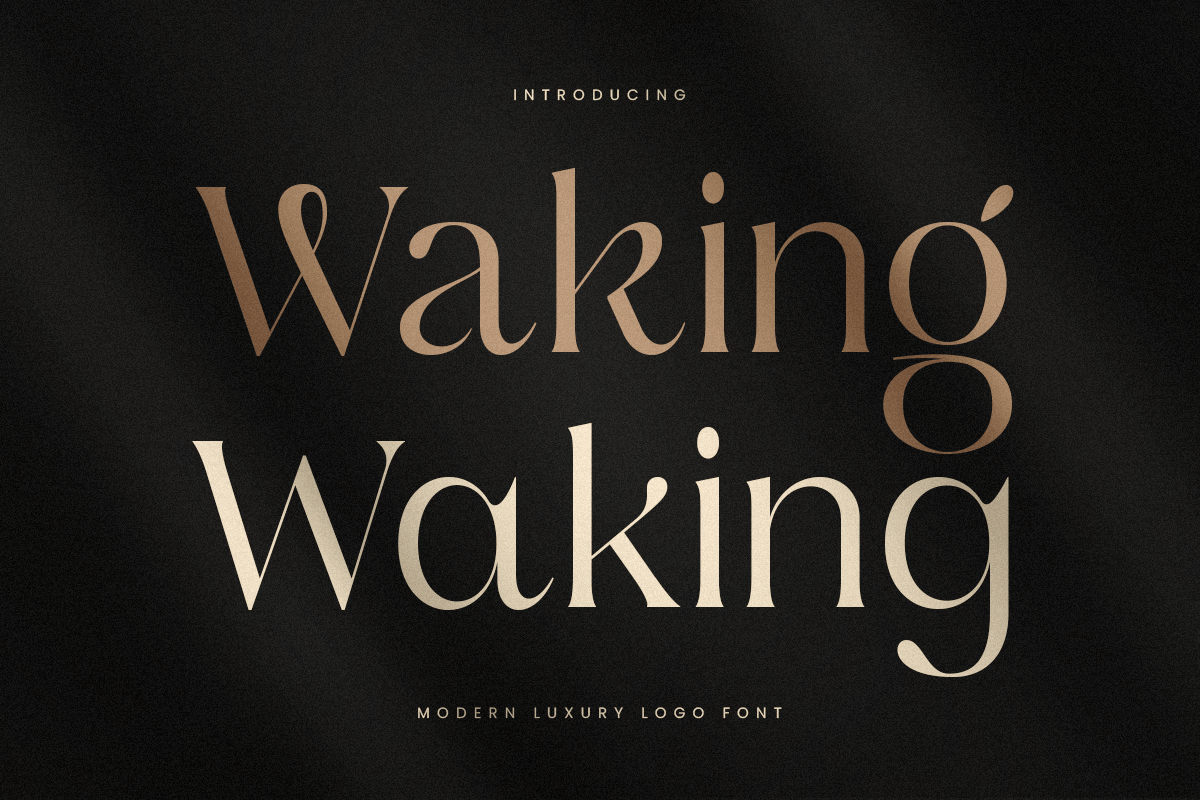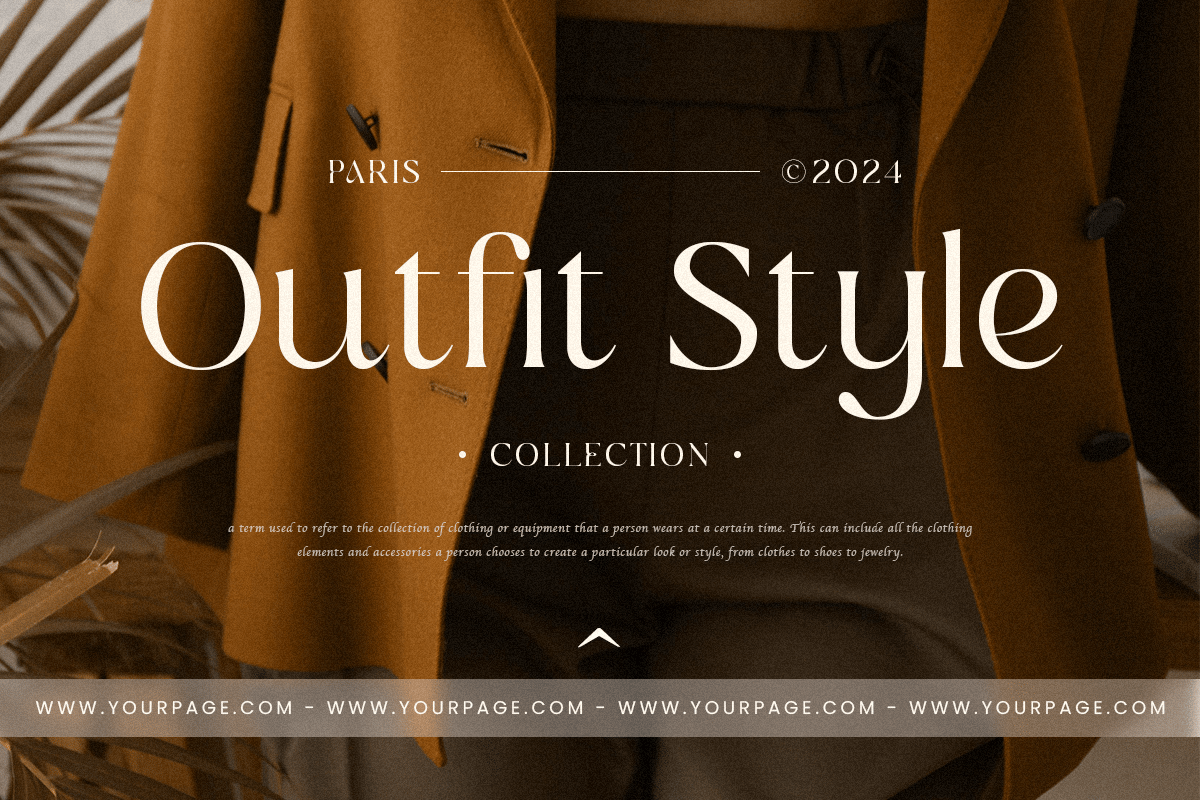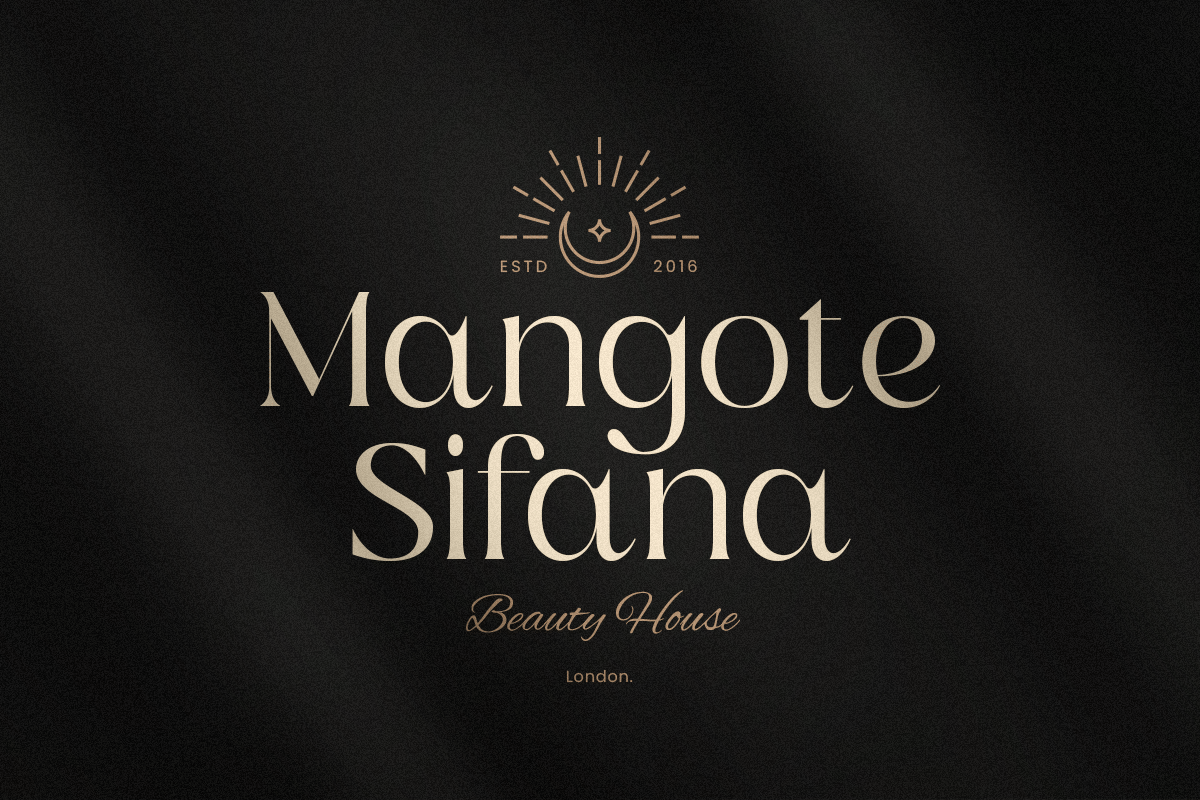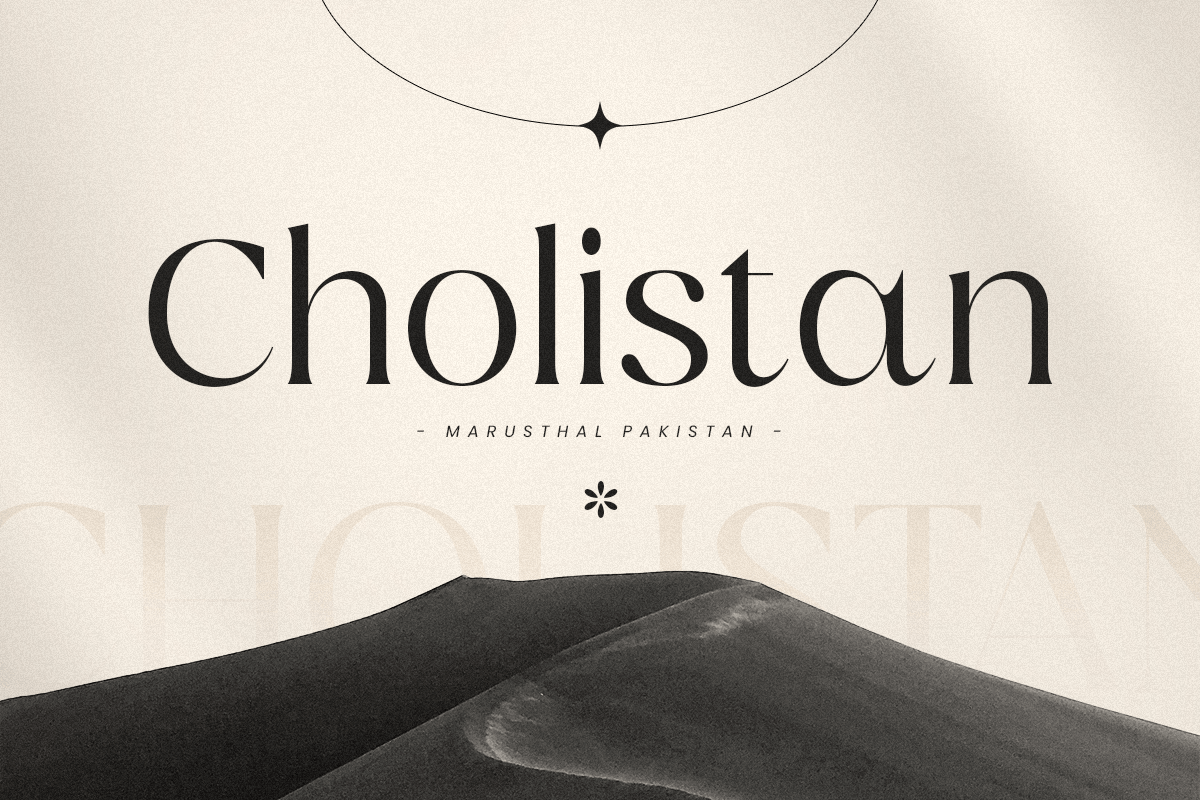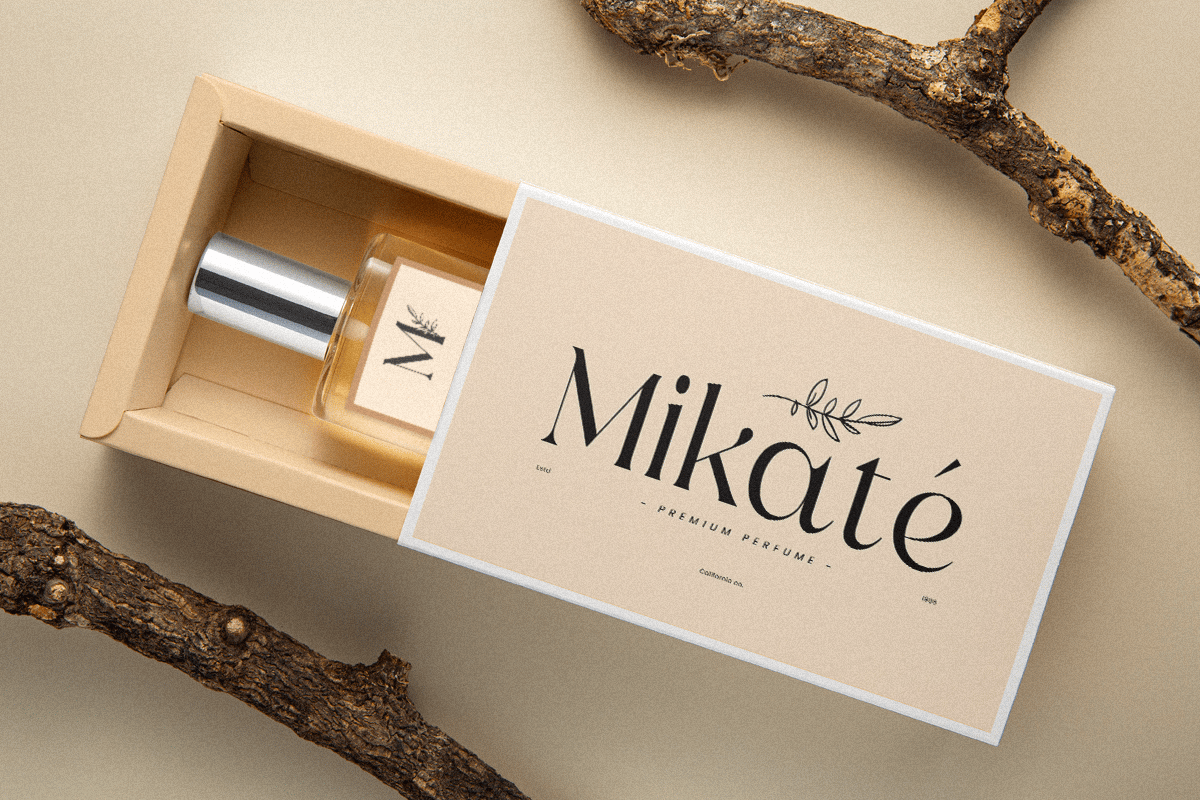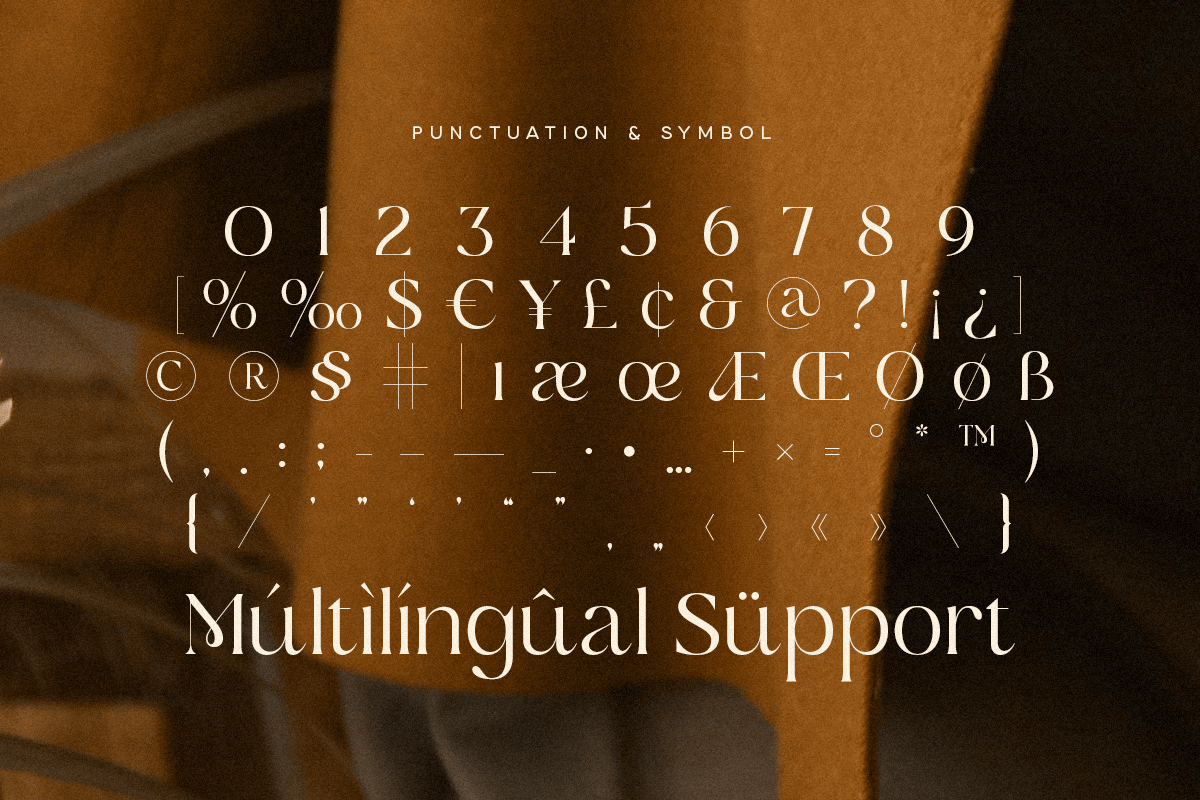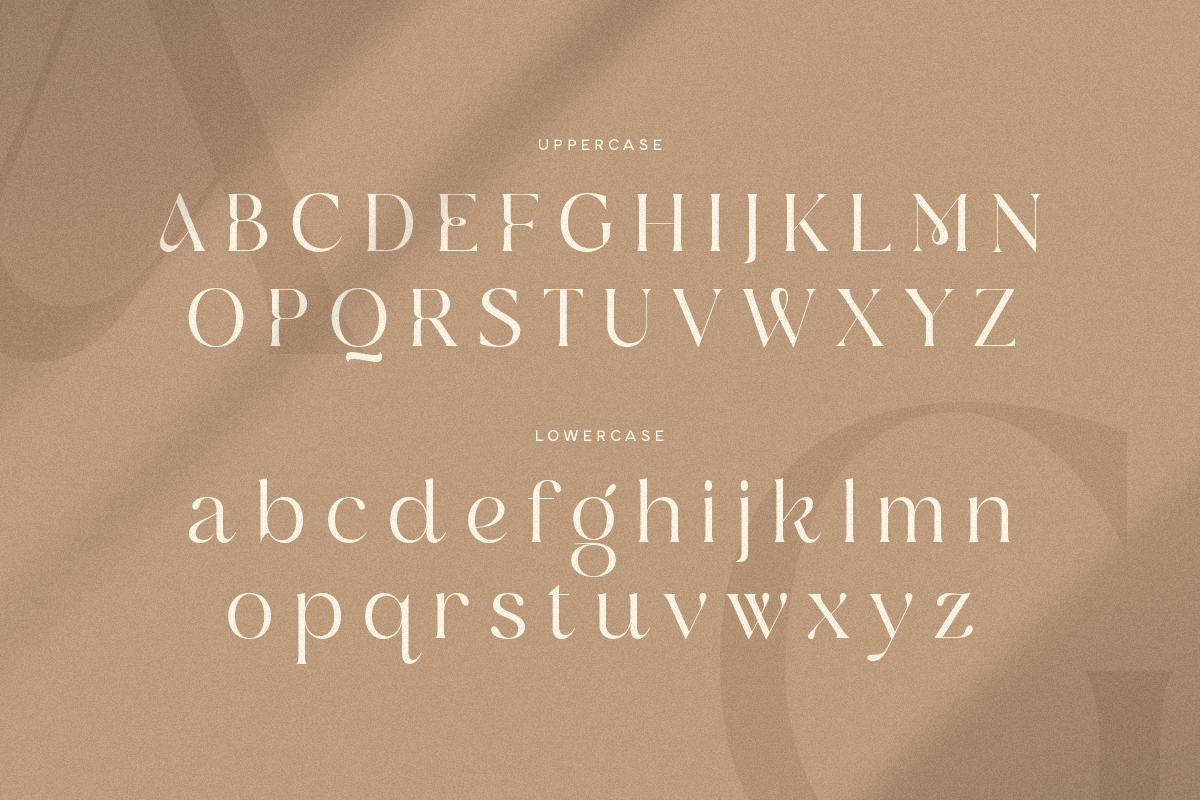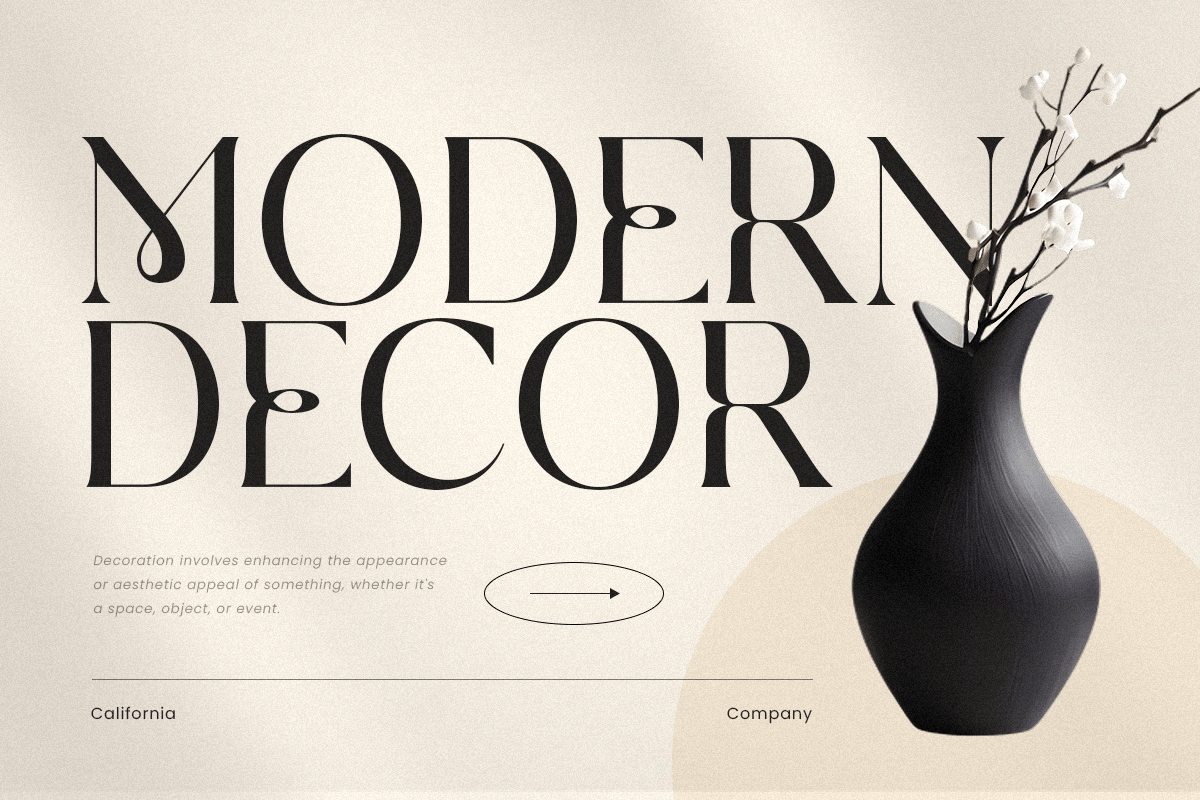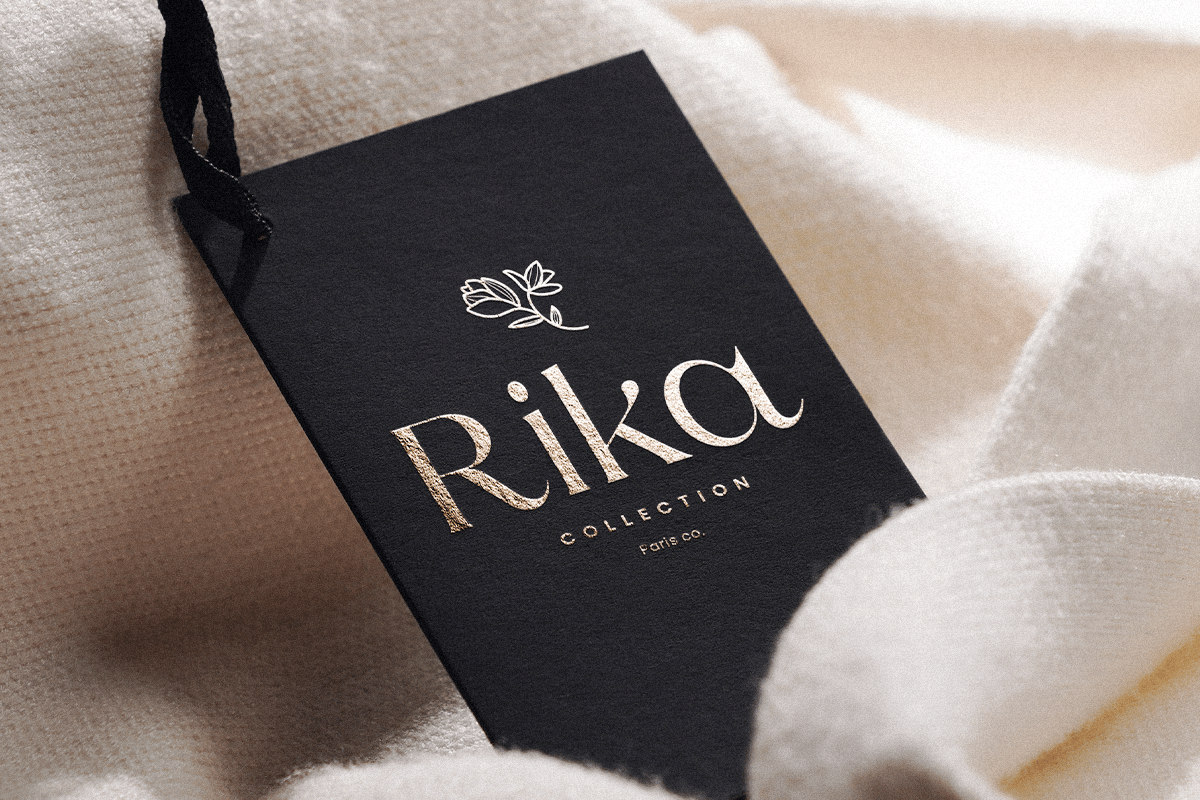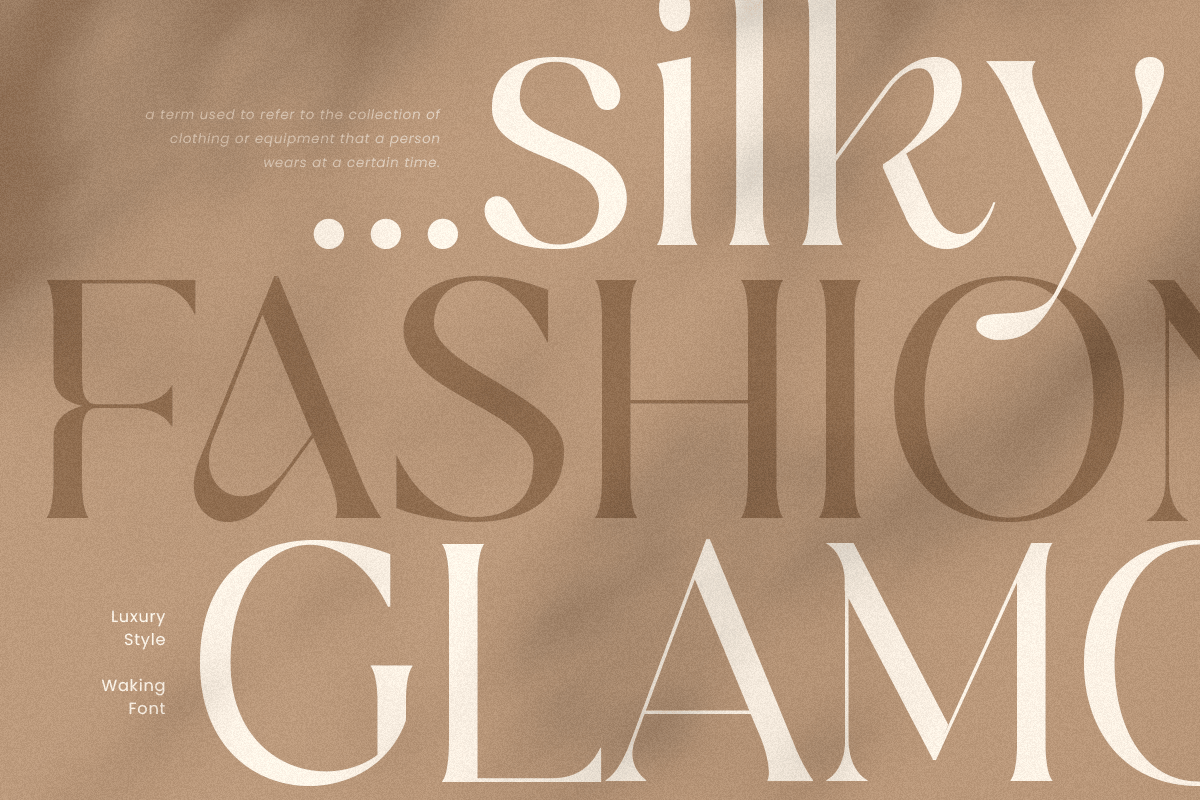
Waking Luxury Font
Introducing Waking, the epitome of luxury and elegance in logo design. Waking is a serif font crafted to bring sophistication and class to your branding projects.
Waking Font Features:
- Elegant Design: A luxurious serif style perfect for high-end branding and logo creation.
- Versatile Usage: Ideal for logos, branding, invitations, and upscale designs.
- Refined Aesthetics: Sleek and stylish, ensuring your designs stand out.
Elevate your brand with Waking, a font that exudes sophistication and timeless elegance. Whether for creating stunning logos or refined typography, Waking brings a touch of luxury to all your design projects. Make a lasting impression with Waking’s high-end style and impeccable design.